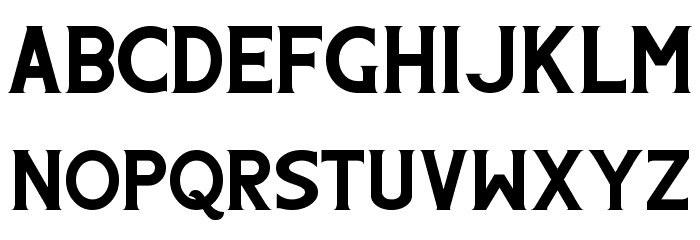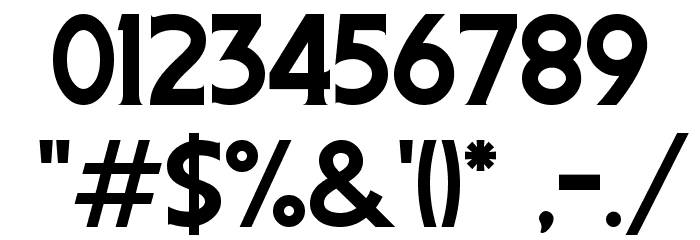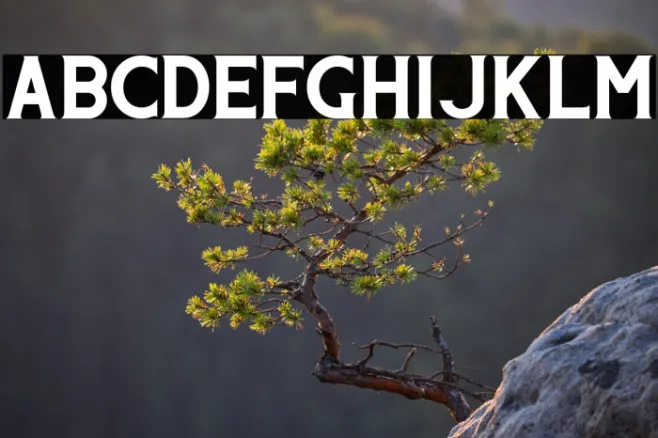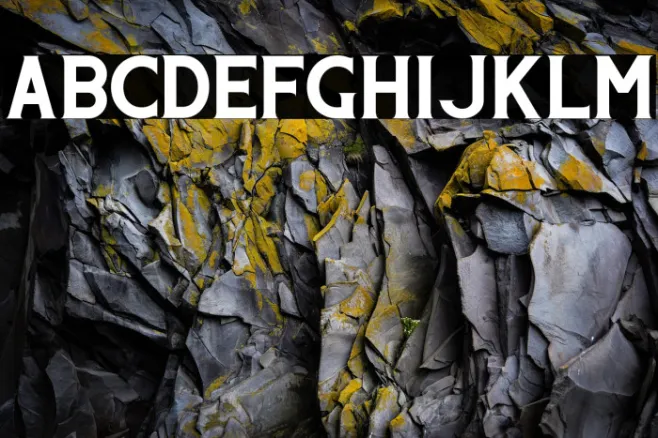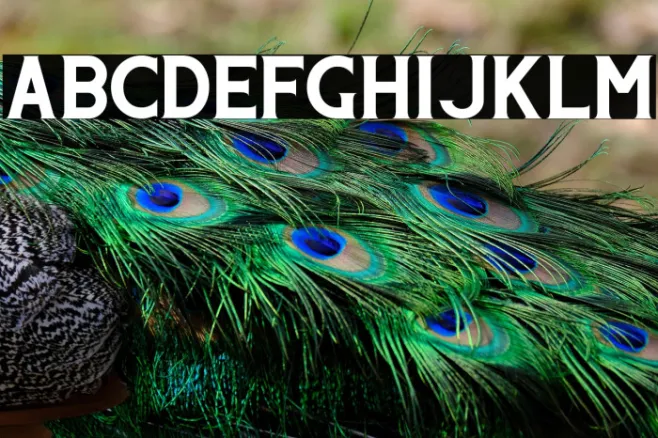
Blue Font
This font features a bold and assertive style with strong, angular serifs that give it a distinctive and commanding presence. The uppercase letters are uniformly designed with a consistent height, while the lowercase letters maintain a similar width, creating a harmonious balance. The numerals are bold and easily readable, making them suitable for various applications. Special characters are crafted with the same attention to detail, ensuring they blend seamlessly with the rest of the typeface. This font's overall aesthetic is both modern and classic, making it versatile for a wide range of design projects.
A bold serif font with strong, angular serifs and a modern yet classic aesthetic.
- Font: Blue
- Proposed Projects: Ideal for headlines, branding, posters, and editorial design where a strong visual impact is desired.
- Category: Serif
- Use Case: Headlines, Branding, Posters